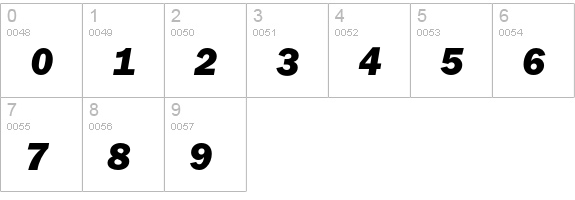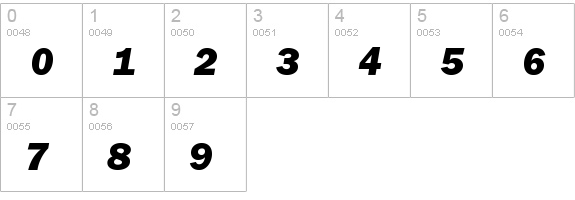
FranklinGothicEF-HeavyIta Font Details
FranklinGothicEF-HeavyIta is a bold and impactful font that exudes strength and sophistication. Its heavy italic style adds a touch of elegance to any design, making it perfect for headlines, titles, and branding projects. With its sharp lines and distinctive letterforms, FranklinGothicEF-HeavyIta commands attention and leaves a lasting impression. The best part? FranklinGothicEF-HeavyIta is available for free download at FontsMarket.com. Now you can elevate your designs with this stunning font without breaking the bank. Whether you're working on a poster, logo, or website, FranklinGothicEF-HeavyIta will bring a touch of class and professionalism to your projects. Download it today and let your creativity soar with this exceptional typeface.